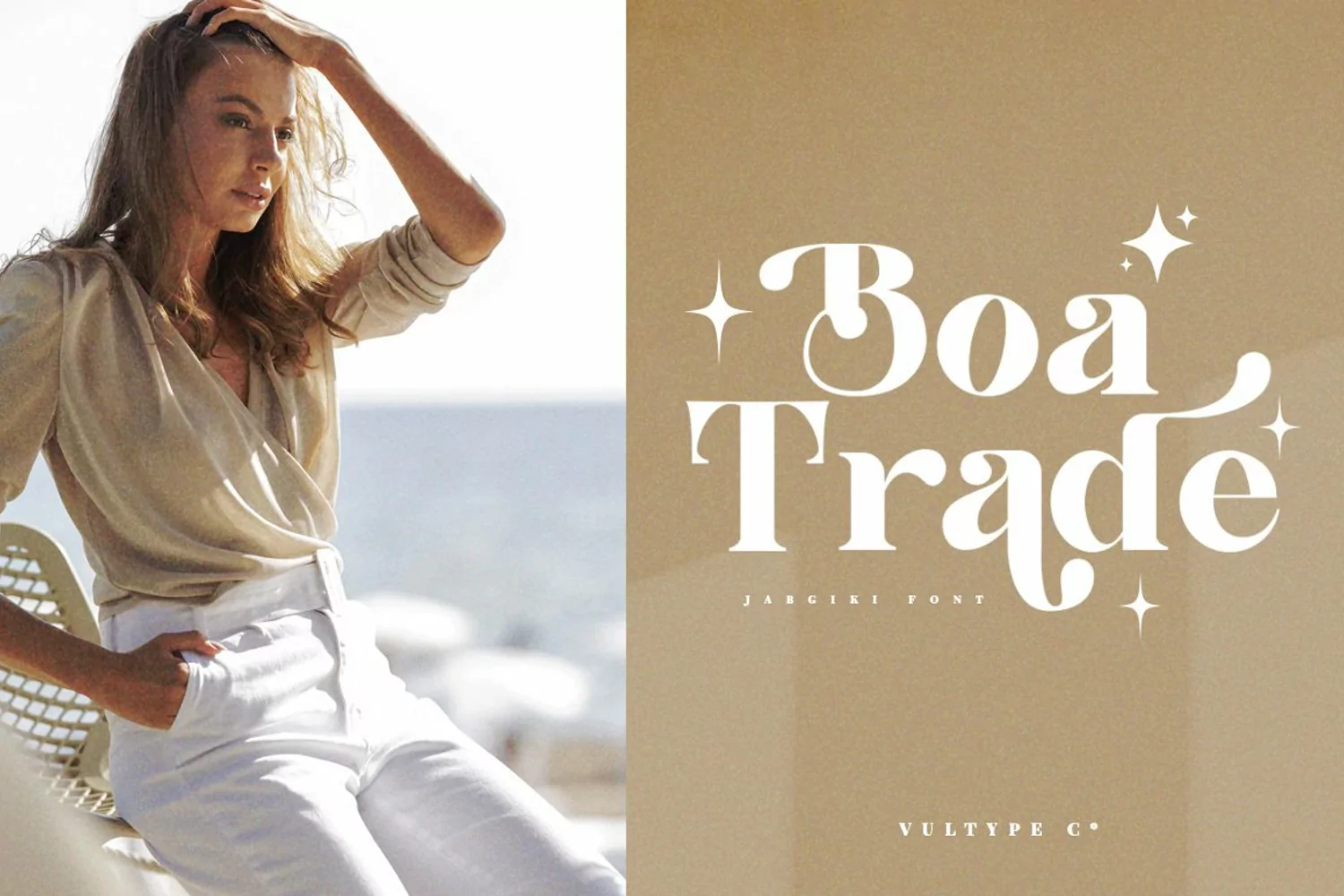
Introducing Jabgiki – a Classic serif font
Beautiful and soft fonts in a contemporary style that can make your design projects look modern, elegant and luxurious. Made with many alternative characters to make it easier for you to do various design projects and give you fun while typing.